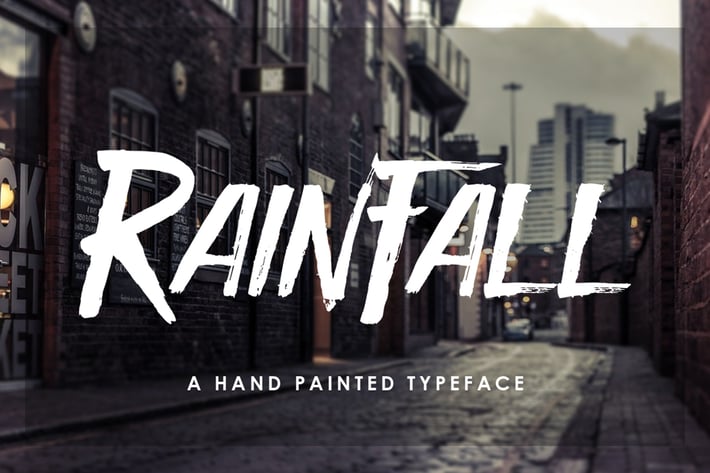
Rain Fall Font
Rain Fall is a new rustic typeface and is very best choice fonts for : ,quotes, Posters, Logos, Print Ads, Digital Ads, Promotion Product, video bumper, etc